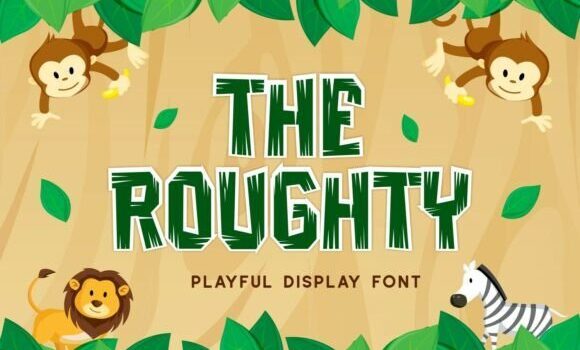
roughty
Roughty Font - Featured Image
Roughty Font – Free Download Introduction to Roughty Font Roughty is a adventurous and decorative playful font designed to capture the spirit of exploration. 📸 Preview Gallery 4 images 📌 Product Name Roughty Font 👤 Author imoodev 📂 Category Explore